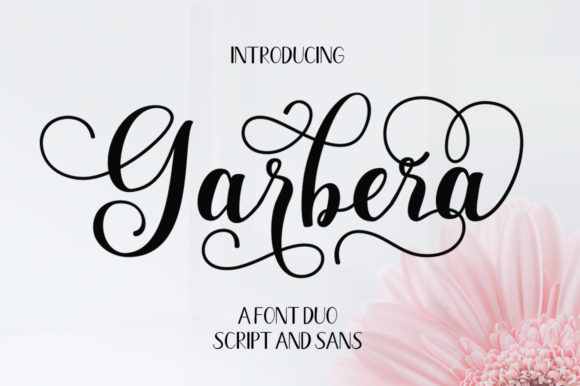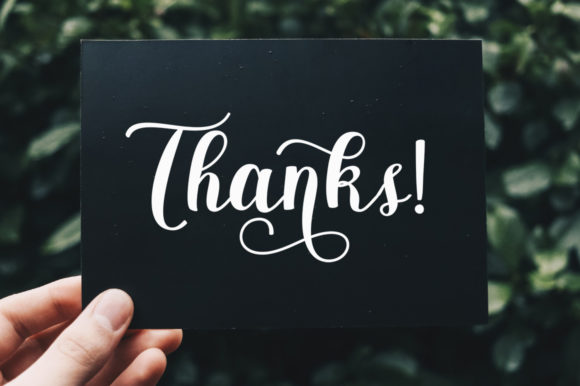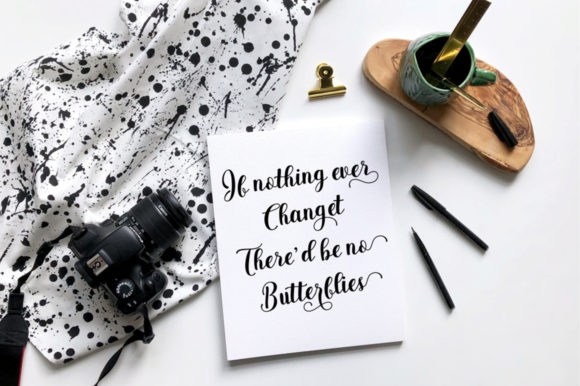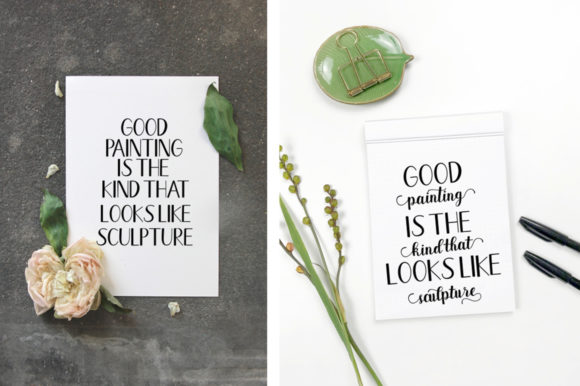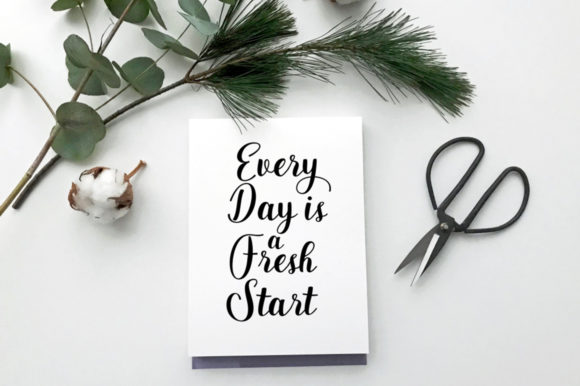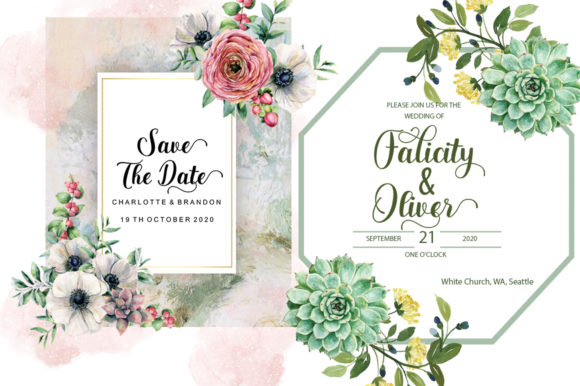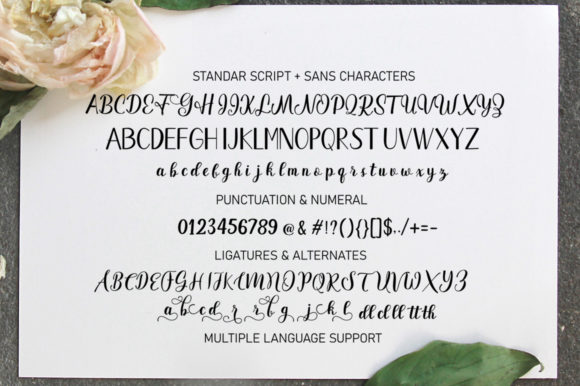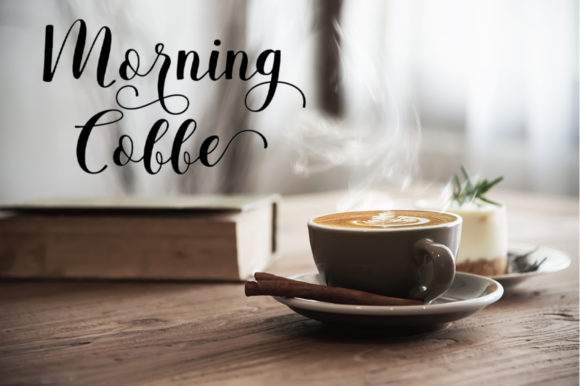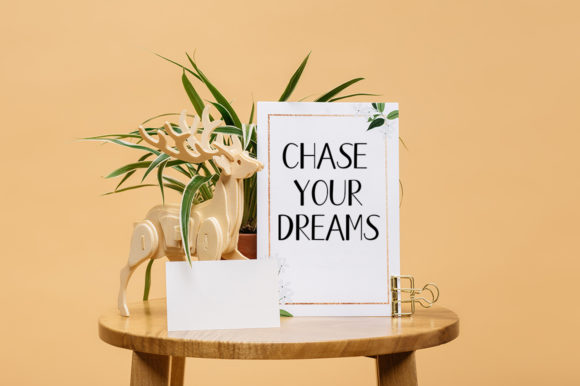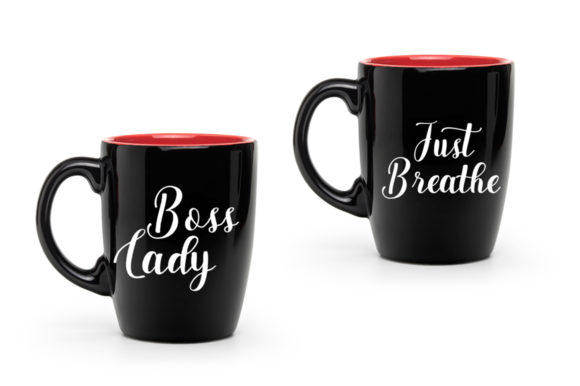
Garbera Duo Font
About Garbera Duo Font
Garbera Duo is a match made in heaven. The script characters perfectly complements the sans serif characters. Combining these two fonts on your next design will give your next design a tasteful and cheerful feel.